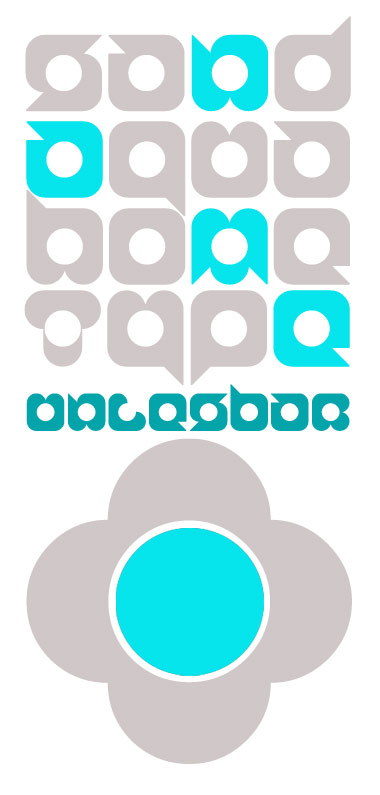
Probably the cutest font ever! The letters look like tiny creatures.
Nice work. The only glyph I'm not sure about is the j ... perhaps it might work as a reverse form of the l ... just a thought :)
Great to see your return Kix! This has a nice spring-like flowery quality to it. Perfect for the upcoming season.
Very pretty. It would be an excellent choice for logo type or T-shirt design. Your vivid samples indicate you have had plenty of excitement in creating gappy. 10/10
So cute! I love it. Good job :]
This is a really cool font. It's hard to get these things to work, and you got these letters exactly how where they want to be. 10/10
@This font: I love how unreadable, and yet how readable it is!
I came across this logo on a commercial web site. Striking similarity.